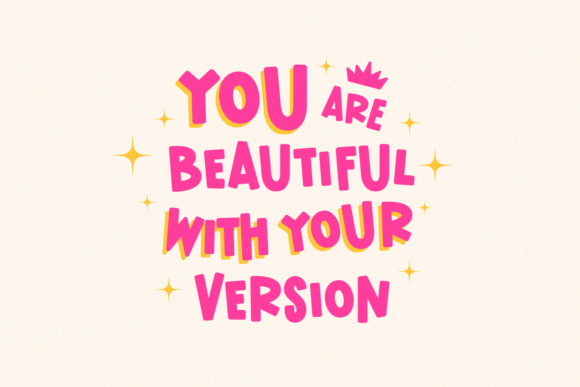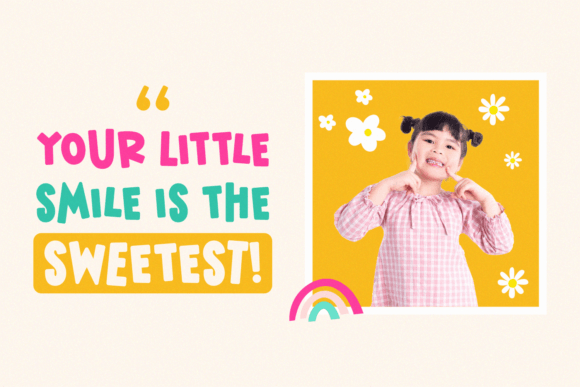
Queena Font
Queena is a playful and childish display font that brings a sense of fun and whimsy to any design project. Its rounded letterforms have a friendly and approachable feel, making it a perfect choice for designs geared towards children or those that want to evoke a sense of youthful innocence. The unique letter shapes feature exaggerated proportions, making it easy to read and perfect for headlines, titles, or any design that wants to capture a lighthearted and carefree tone.